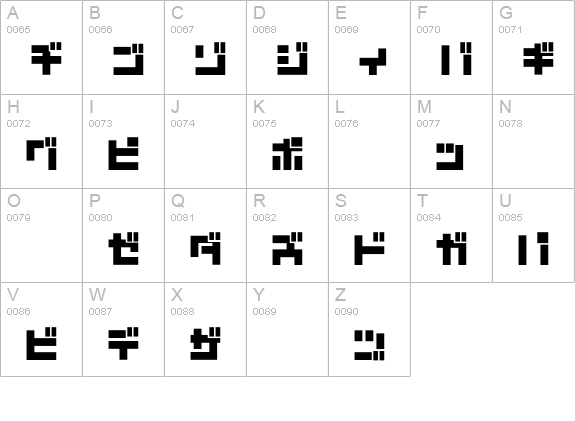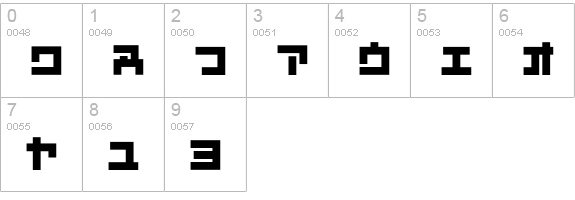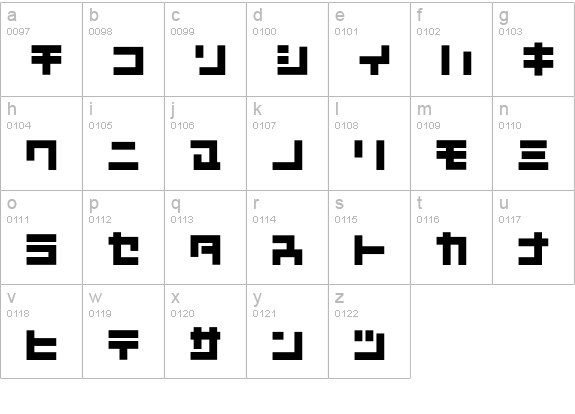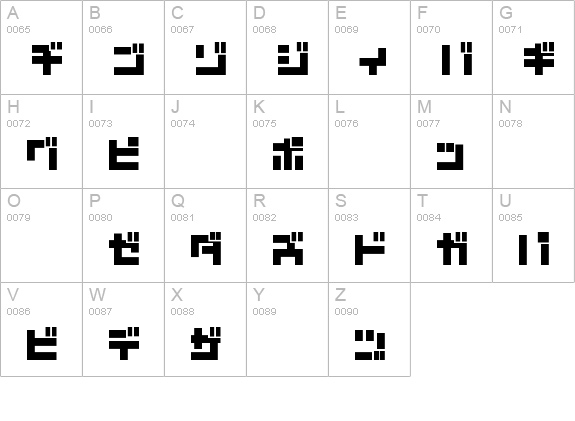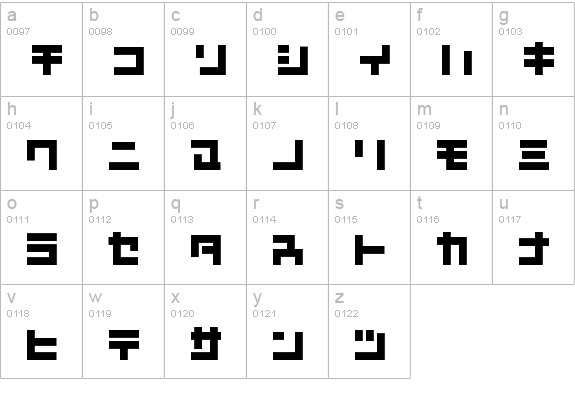
D3 Mouldism Katakana Font Details
D3 Mouldism Katakana font is a stunning and unique typeface that brings a modern twist to traditional Japanese characters. With its sleek and futuristic design, this font is perfect for adding a touch of contemporary flair to any project. What sets D3 Mouldism Katakana font apart is that it is not only visually captivating, but also freely available to download. This means that you can easily access this remarkable font without any cost, making it an excellent option for designers, artists, and enthusiasts who want to enhance their work without breaking the bank. Designed with meticulous attention to detail, D3 Mouldism Katakana font features sharp edges, clean lines, and an overall sophisticated aesthetic. Every character is carefully crafted to maintain consistency and legibility, ensuring that your message comes across effortlessly. Whether you're working on a logo, poster, or website, this font will effortlessly elevate your design to new heights. With its extensive character set, D3 Mouldism Katakana font provides endless possibilities for creative expression. From bold headlines to subtle accents, this font can adapt to any style or purpose. Its versatility and modern appeal make it a go-to choice for designers seeking to make a bold statement. To access the D3 Mouldism Katakana font, simply head over to FontsMarket.com, where it is freely available for download. FontsMarket.com offers a vast collection of high-quality fonts, and this font is no exception. By providing this font for free, FontsMarket.com empowers designers and creatives to explore their limitless potential without any financial constraints. In conclusion, the D3 Mouldism Katakana font is a visually stunning and freely available typeface that combines modern design with traditional Japanese characters. Whether you're working on a personal project or a professional endeavor, this font is sure to captivate your audience and elevate your creative vision. Download it today from FontsMarket.com and unlock a world of design possibilities.